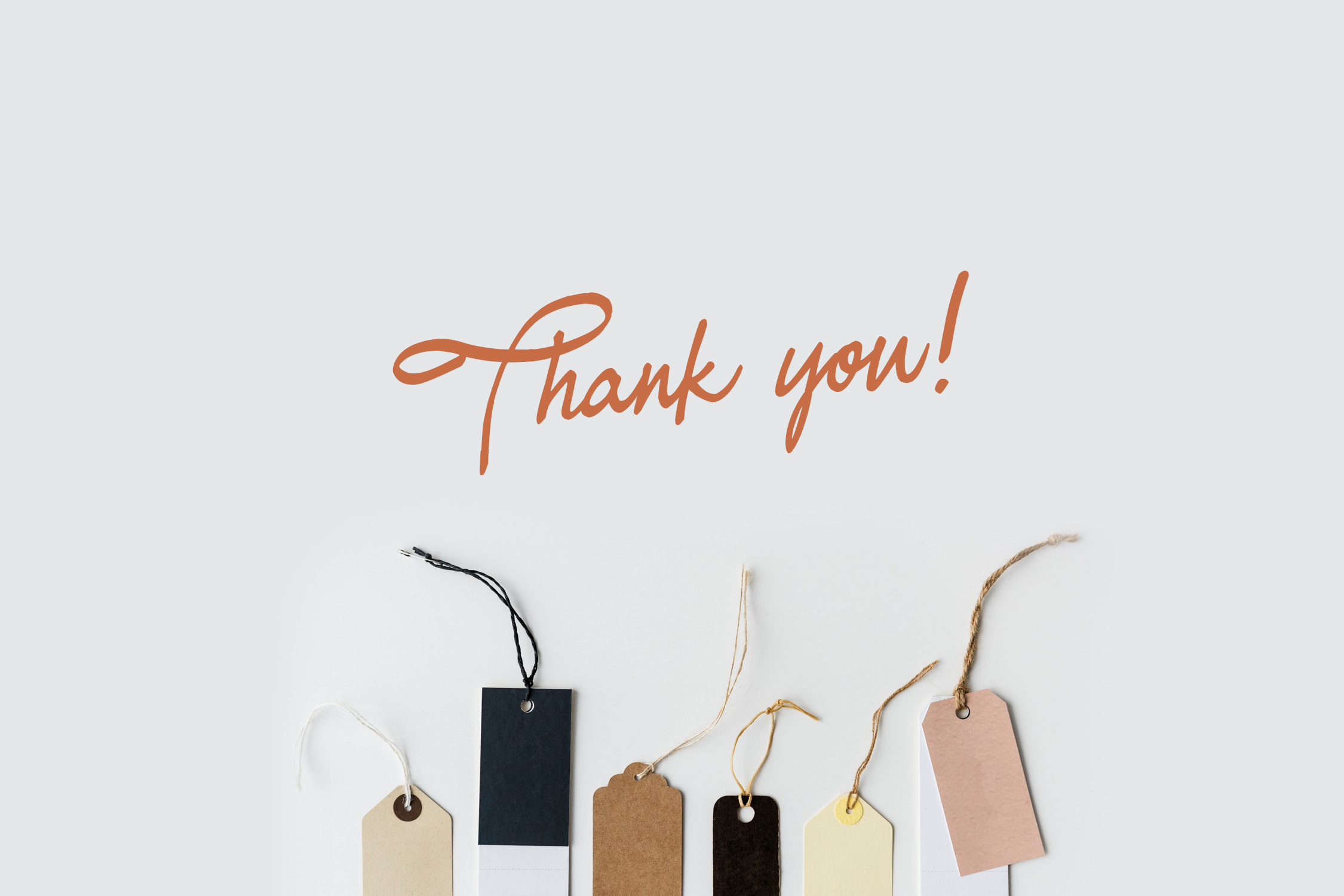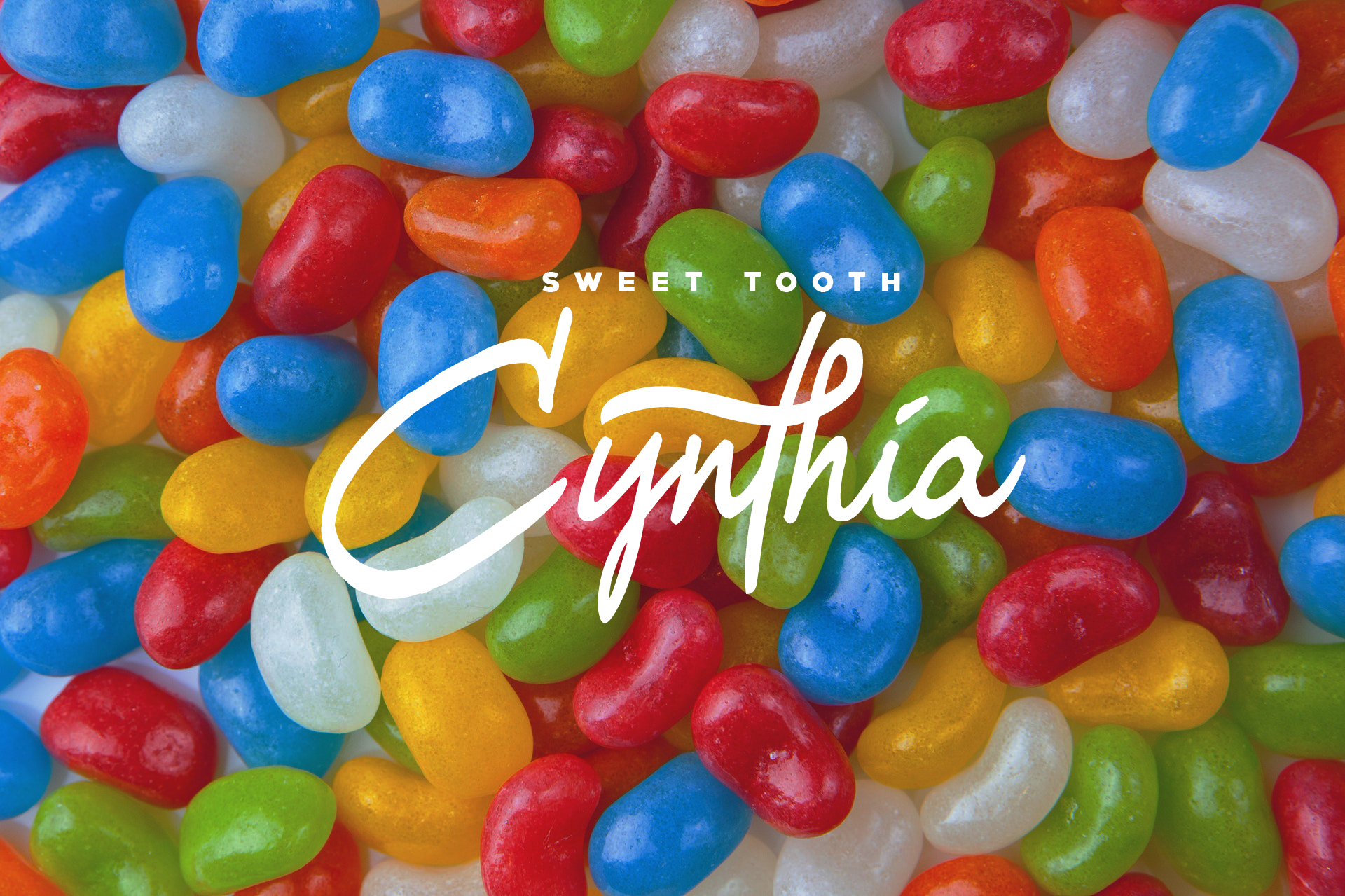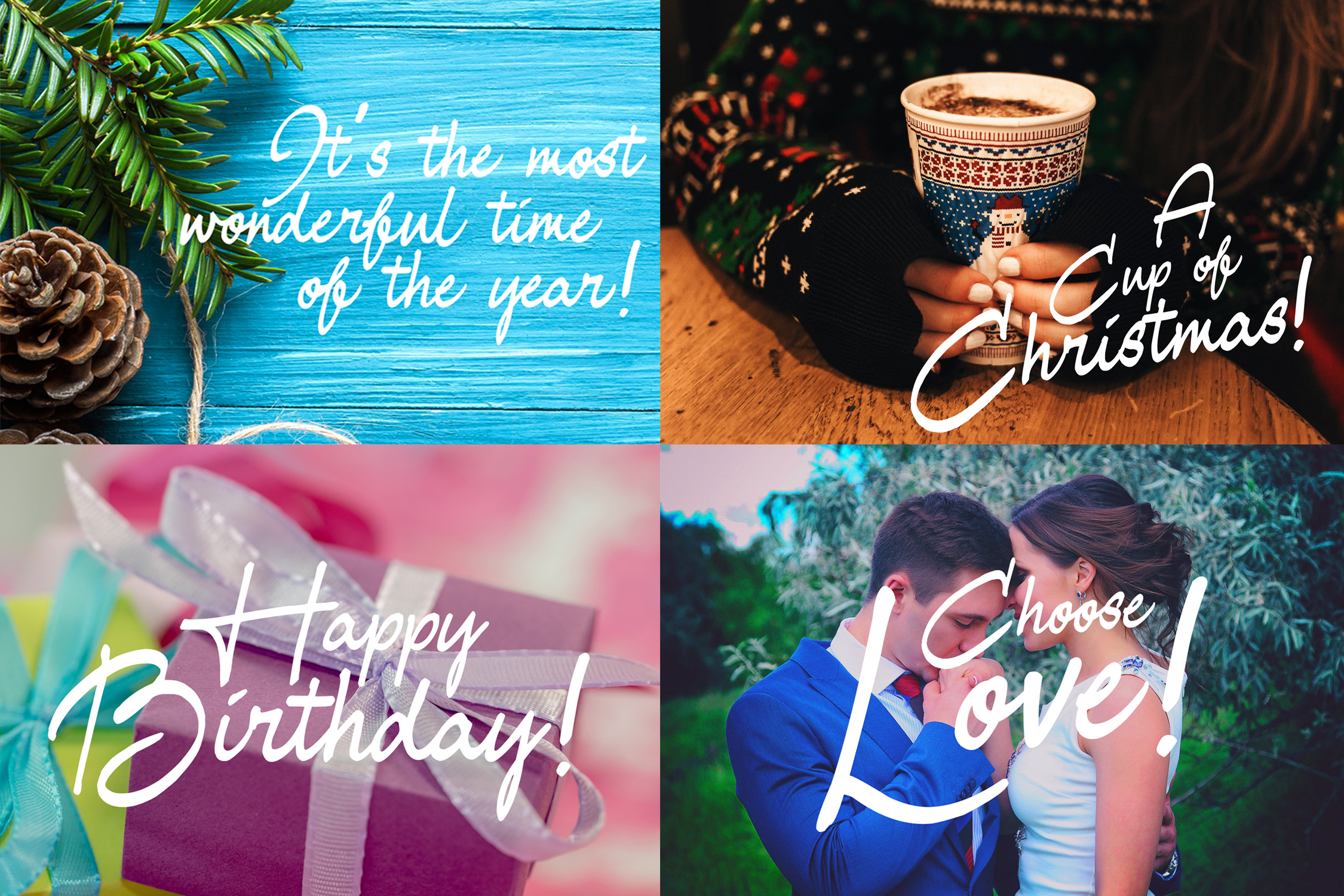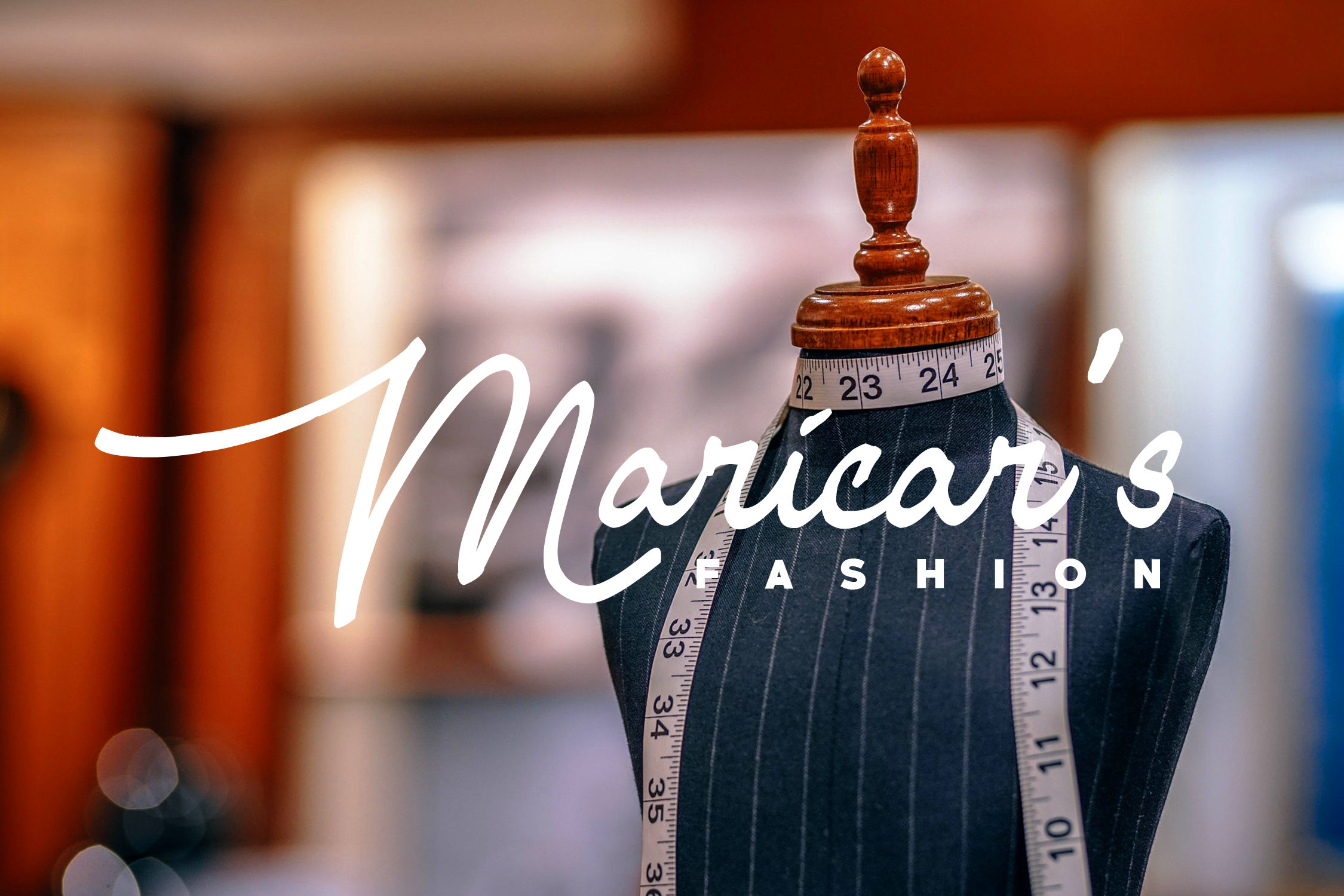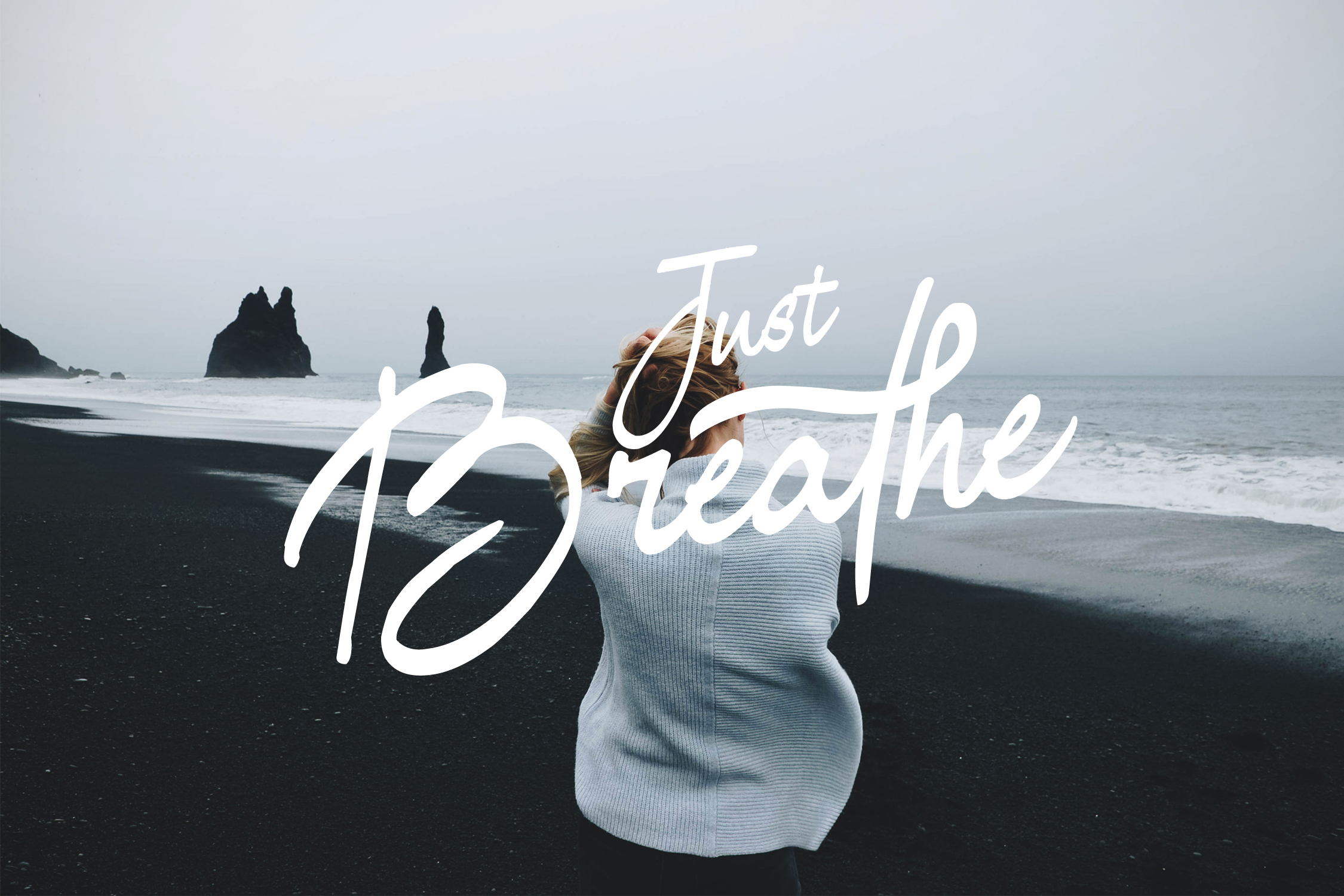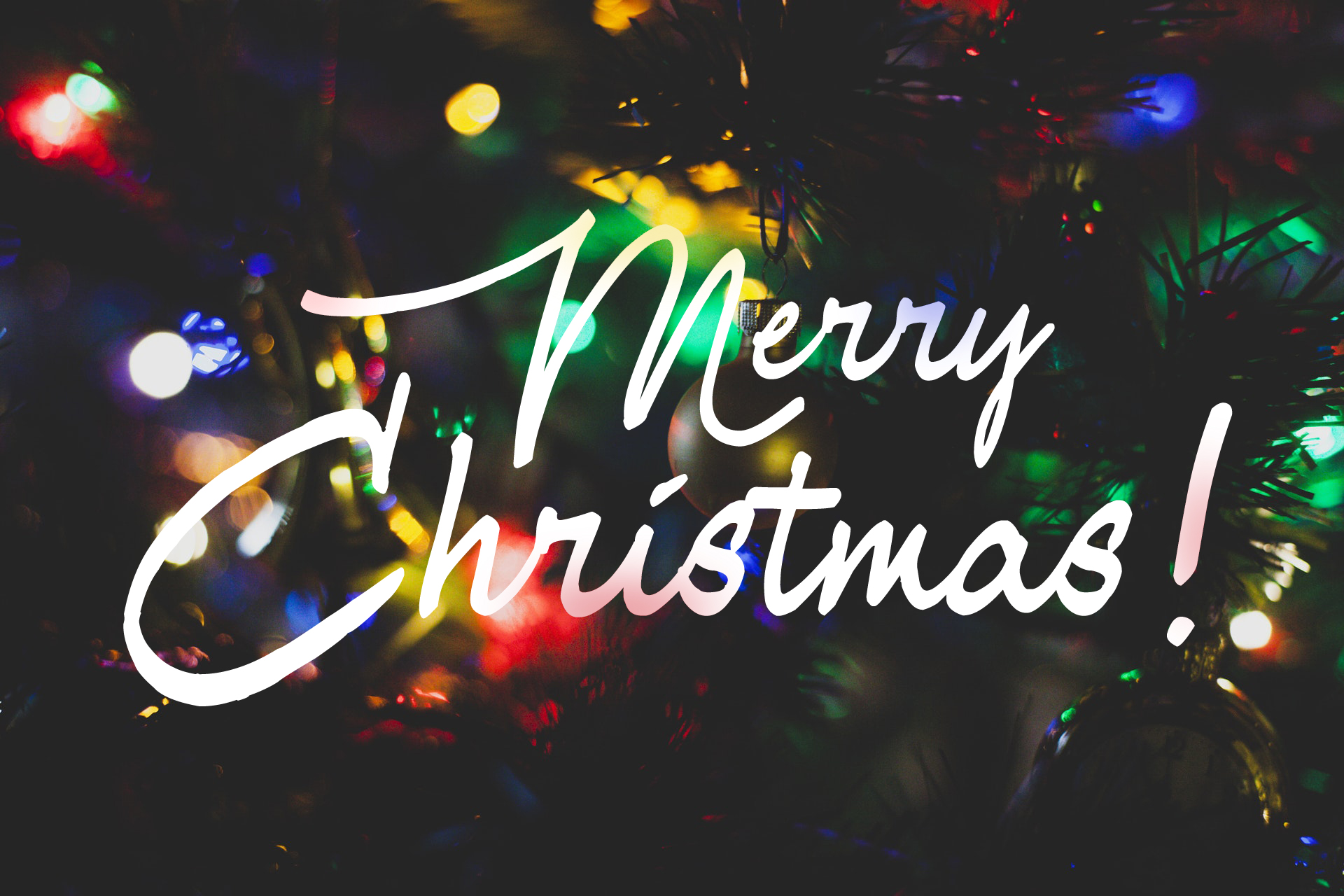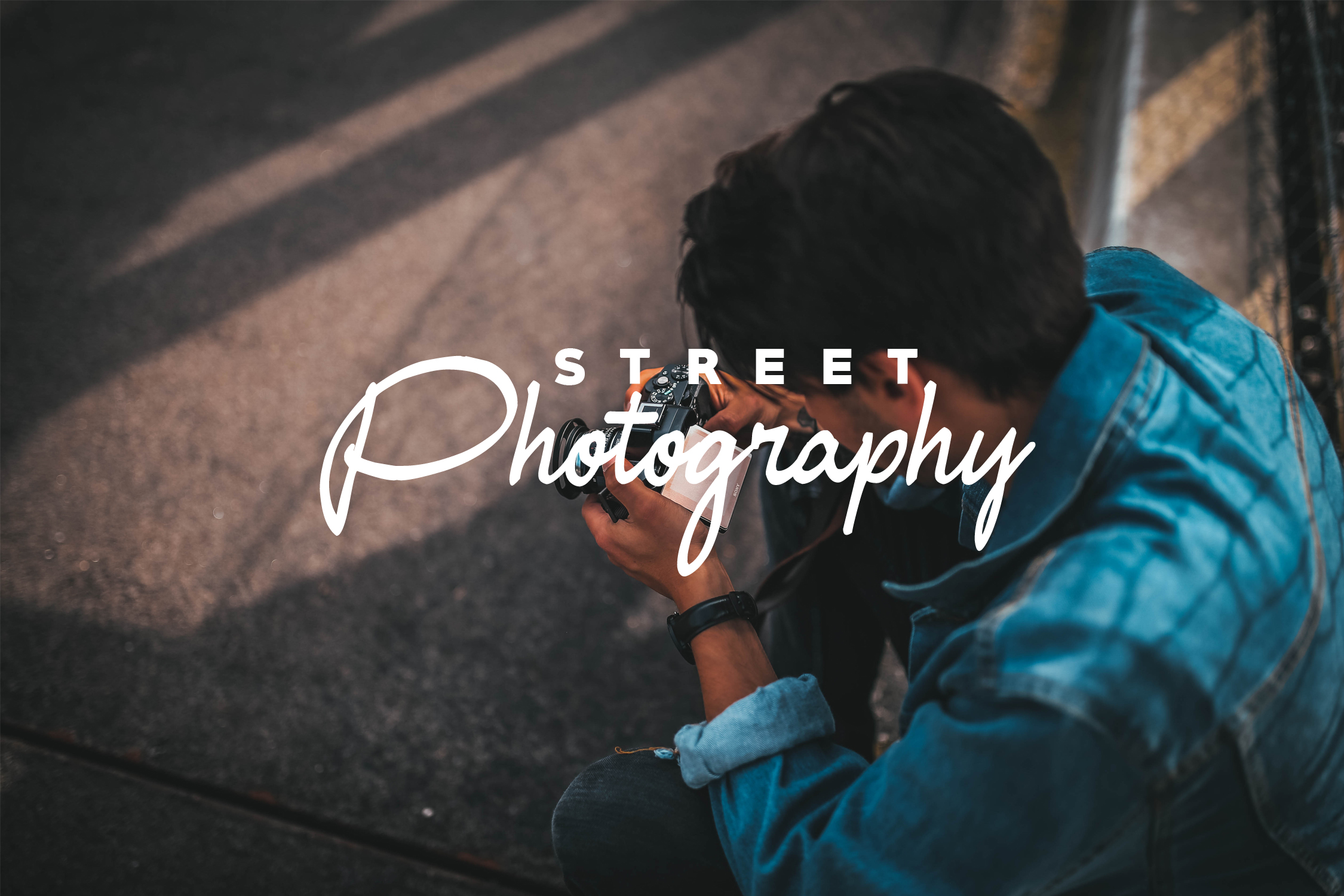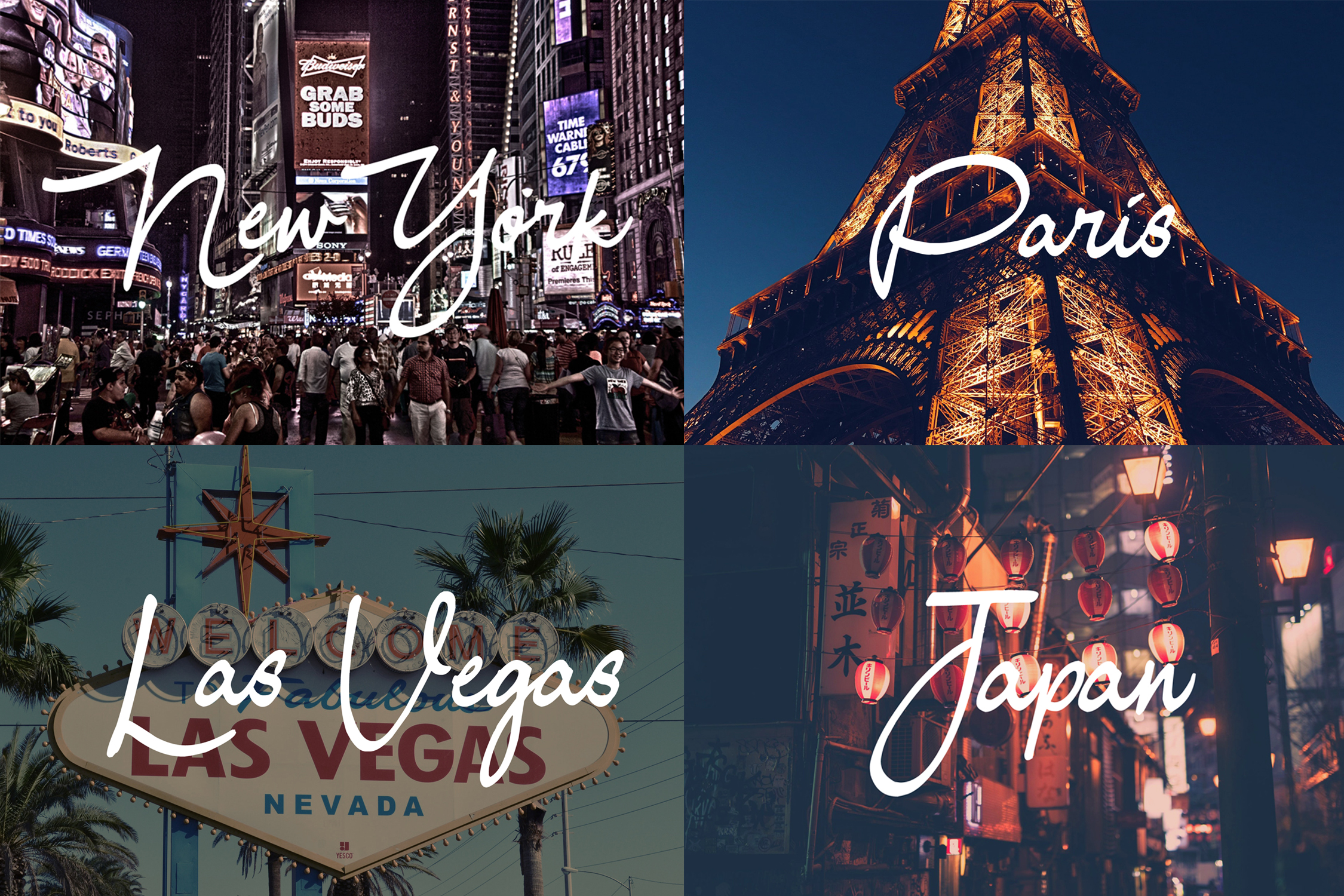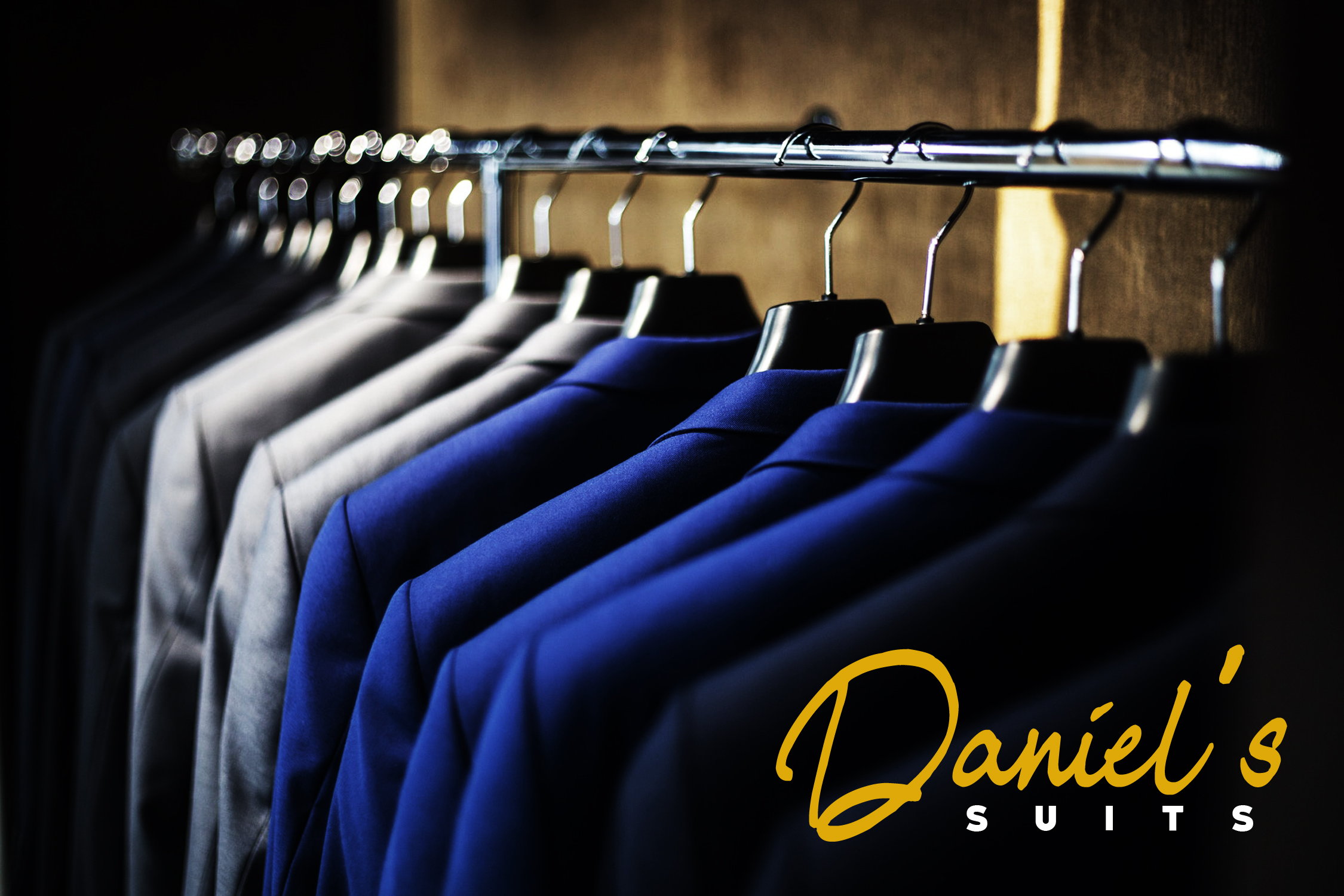
Samantha Font
About Samantha Font
Samantha is your new feel-good font for your next project! Samantha is carefully handwritten and inked to achieve that calligraphy style you are looking for. The style of a feminine project will be much classy than the usual. As a font for all seasons, Samantha is perfect for your branding and presentational projects!